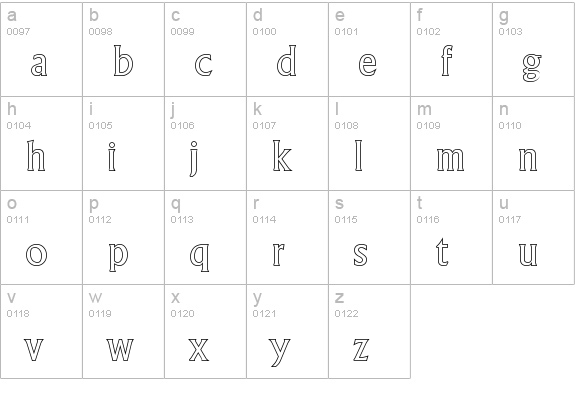
AdelonOutline-Regular is the standard, neutral variant in the AdelonOutline typeface family \xE2\x80\x94 well suited to general body text, paragraphs, and standard typographic work.
AdelonOutline-Regular is a sophisticated and elegant font that exudes a sense of modernity and style. Its clean lines and distinct outline make it perfect for a wide range of design projects, from branding to editorial layouts. With its balanced proportions and versatile appearance, AdelonOutline-Regular adds a touch of refinement to any design it is used in. The best part is that AdelonOutline-Regular is available for free download at FontsMarket.com. This means that you can easily access this beautiful font and incorporate it into your projects without any cost. Whether you are a seasoned designer or just starting out, AdelonOutline-Regular is a valuable addition to your font collection. Download it today and elevate your designs with this stunning typeface.